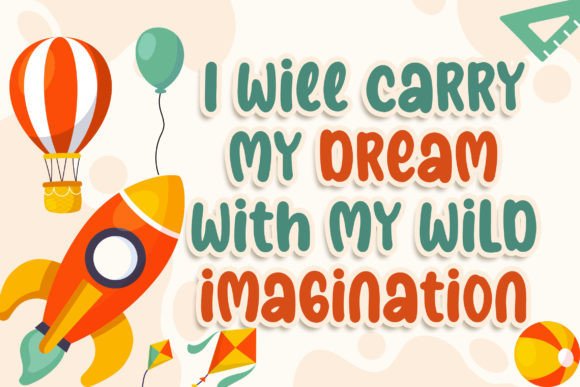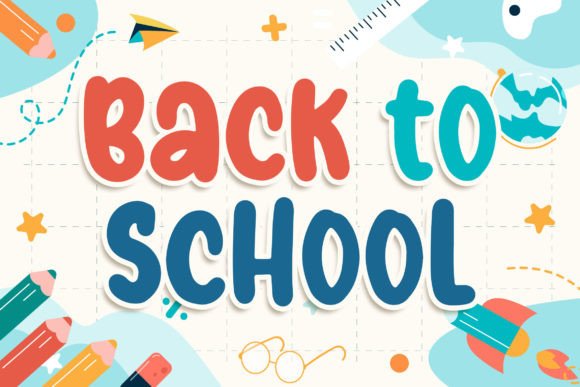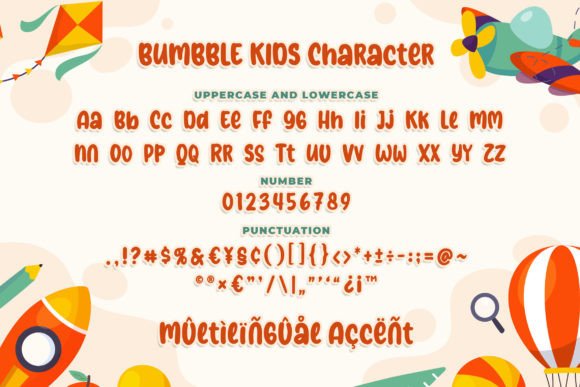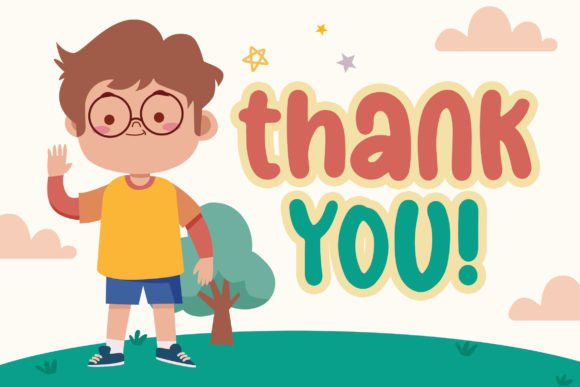
Bumble Kids Font: The Sweetest Addition to Your Design Collection
Are you on the hunt for a font that’s as fun as it is functional? Look no further than Bumble Kids Font! This delightful display font is perfect for adding a touch of whimsy to your designs, making it an ideal choice for cartoon-related projects, children’s games, and any creation that requires a dash of playfulness.
What Makes Bumble Kids Font So Special?
Bumble Kids Font is more than just a pretty face – it’s a versatile typeface that’s designed to bring a smile to your audience’s face. With its rounded edges and soft curves, this font exudes a sense of friendliness and approachability that’s hard to resist. Whether you’re creating a logo, a title sequence, or a social media graphic, Bumble Kids Font is sure to make your design stand out from the crowd.
Perfect for Cartoon-Related Designs
Cartoon and animation enthusiasts, rejoice! Bumble Kids Font is a match made in heaven for your next project. Its playful and youthful vibe is reminiscent of classic cartoons, making it perfect for title sequences, character designs, and even merchandise. Imagine bringing your favorite cartoon characters to life with a font that’s as fun and quirky as they are!
Engage Kids with Bumble Kids Font in Children’s Games
When it comes to creating engaging and interactive experiences for kids, the right font can make all the difference. Bumble Kids Font is designed to capture the imagination of young minds, making it an excellent choice for children’s games, puzzles, and educational materials. Its clear and easy-to-read design ensures that kids can focus on the fun stuff, while your design stands out with a playful personality.
Beyond Kids: Using Bumble Kids Font in Various Design Projects
While Bumble Kids Font is specifically designed with kids in mind, its versatility means it can be used in a wide range of design projects beyond children’s content. Whether you’re creating a brand identity, designing a website, or crafting social media graphics, this font can add a unique and creative touch to your work. Its playful personality is sure to bring a smile to your audience’s face, making your design more approachable and engaging.
Key Features of Bumble Kids Font
- Fun and Playful Design: Bumble Kids Font boasts a unique and whimsical design that’s perfect for adding a touch of personality to your projects.
- Display Font: This font is specifically designed as a display font, making it perfect for titles, headings, and short text passages.
- Easy to Read: Despite its playful design, Bumble Kids Font remains clear and easy to read, making it suitable for a wide range of applications.
- Versatile: From cartoon-related designs to children’s games and beyond, Bumble Kids Font is a versatile typeface that can be used in various design projects.
Get Ready to Buzz with Creativity!
Ready to add a dash of fun and playfulness to your designs? With Bumble Kids Font, you can create engaging, interactive, and downright delightful experiences that will capture the hearts of your audience. Whether you’re a designer, a crafter, or simply someone who loves to create, this font is sure to become a favorite in your collection.
In conclusion, Bumble Kids Font is a fantastic addition to any design collection. Its unique blend of playfulness and functionality makes it an excellent choice for a wide range of projects, from cartoon-related designs to children’s games and beyond. So why wait? Download Bumble Kids Font today and get ready to bring a smile to your audience’s face with your next design project!